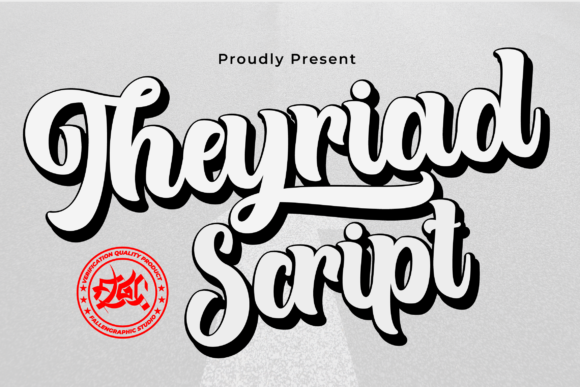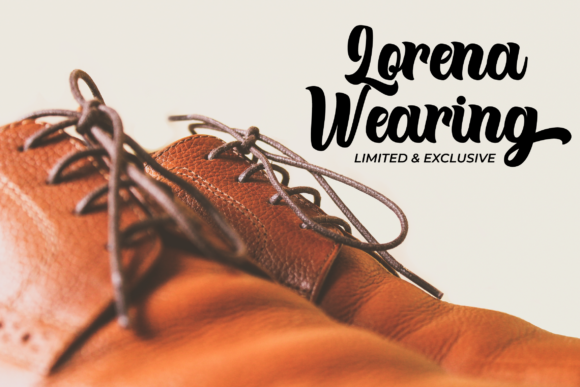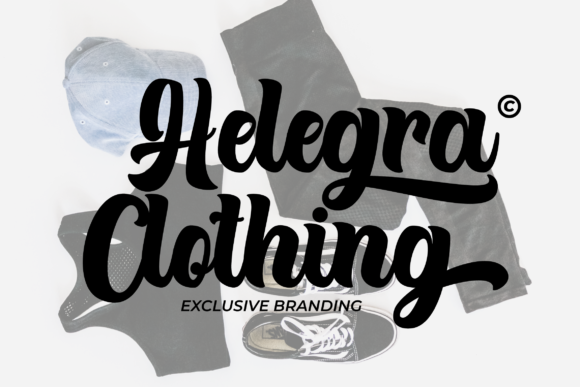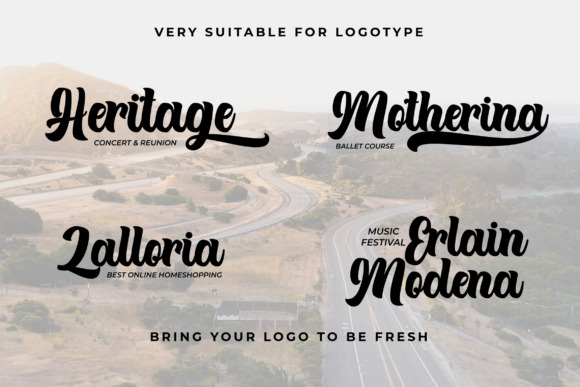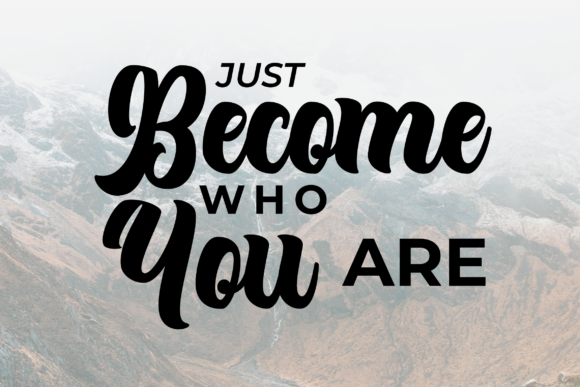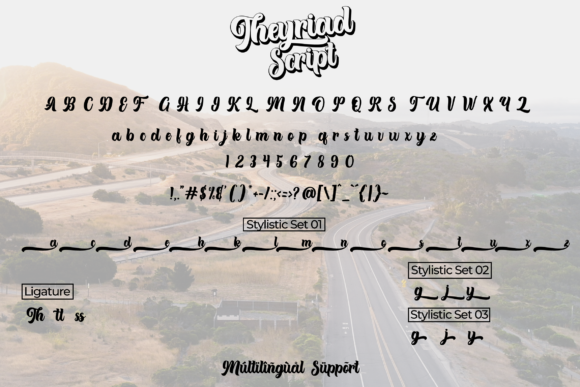
Theyriad Font
Theyriad features a timeless script style, which makes this handwritten font a great choice for watermarks on photography, logo design, quotes, album covers, business cards, and much more! Theyriad will elevate your work to the highest level.